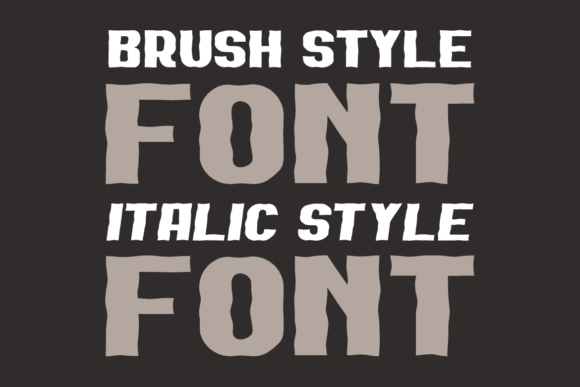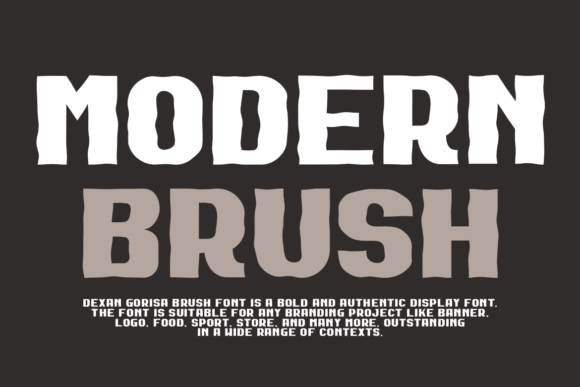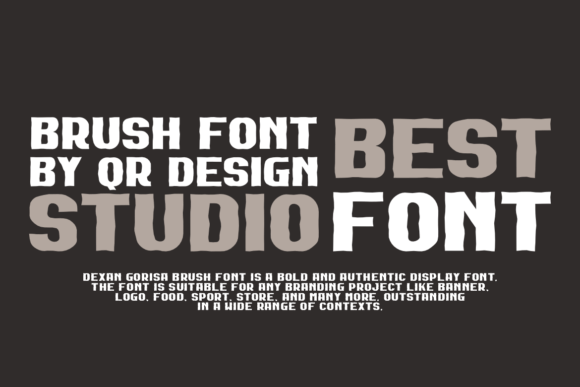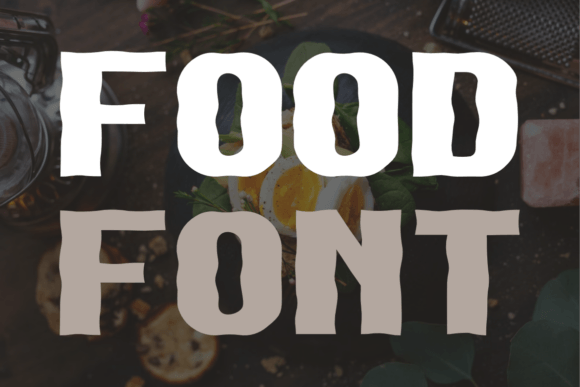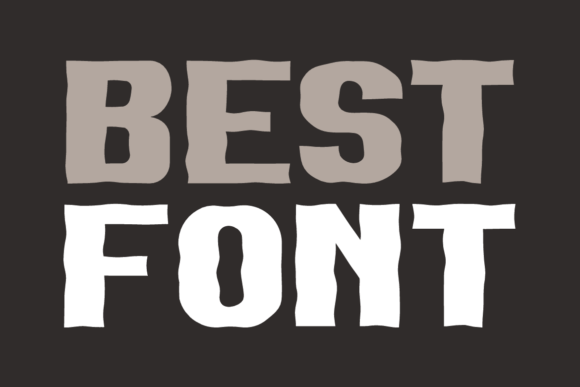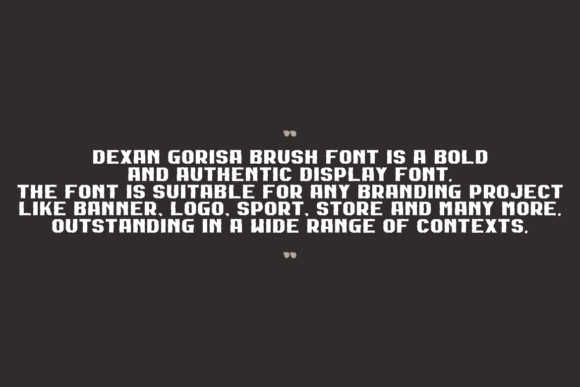
Introducing Dexan Gorisa Brush Font: The Ultimate Display Font for Bold Designs
Are you looking for a font that can add a touch of authenticity and boldness to your branding projects? Look no further than Dexan Gorisa Brush Font. This stunning display font is perfect for designers and crafters who want to create eye-catching logos, packaging, and marketing materials that stand out from the crowd.
What is Dexan Gorisa Brush Font?
Dexan Gorisa Brush Font is a bold and authentic display font that is designed to make a statement. With its unique brush-like texture and bold letterforms, this font is perfect for creating striking headlines, logos, and titles that grab attention. The font is versatile and can be used in a wide range of contexts, from food and sports branding to fashion and lifestyle projects.
Key Features of Dexan Gorisa Brush Font
- Bold and Authentic: Dexan Gorisa Brush Font is a bold and authentic display font that is designed to add a touch of personality to your designs.
- Brush-Like Texture: The font features a unique brush-like texture that gives it a hand-crafted feel.
- Versatile: The font is suitable for use in a wide range of contexts, from logos and branding to packaging and marketing materials.
- Easily Readable: Despite its bold nature, Dexan Gorisa Brush Font is easily readable, even at smaller sizes.
Why Choose Dexan Gorisa Brush Font?
There are many reasons why designers and crafters should choose Dexan Gorisa Brush Font for their projects. Here are just a few:
- Unique and Eye-Catching: The font’s unique brush-like texture and bold letterforms make it a standout choice for designers who want to create eye-catching designs.
How to Use Dexan Gorisa Brush Font
Using Dexan Gorisa Brush Font is easy. Here are a few tips to get you started:
- Pair it with Other Fonts: Dexan Gorisa Brush Font works well when paired with other fonts. Try pairing it with a clean sans-serif font for a striking contrast.
- Use it for Headlines: The font is perfect for creating bold headlines and titles that grab attention.
- Experiment with Colors: Dexan Gorisa Brush Font looks great in a variety of colors. Experiment with different colors to find the one that works best for your design.
Dexan Gorisa Brush Font is a bold and authentic display font that is perfect for designers and crafters who want to create eye-catching designs. With its unique brush-like texture and bold letterforms, this font is sure to make a statement in any project. Whether you’re working on a logo, packaging, or marketing materials, Dexan Gorisa Brush Font is a great choice.